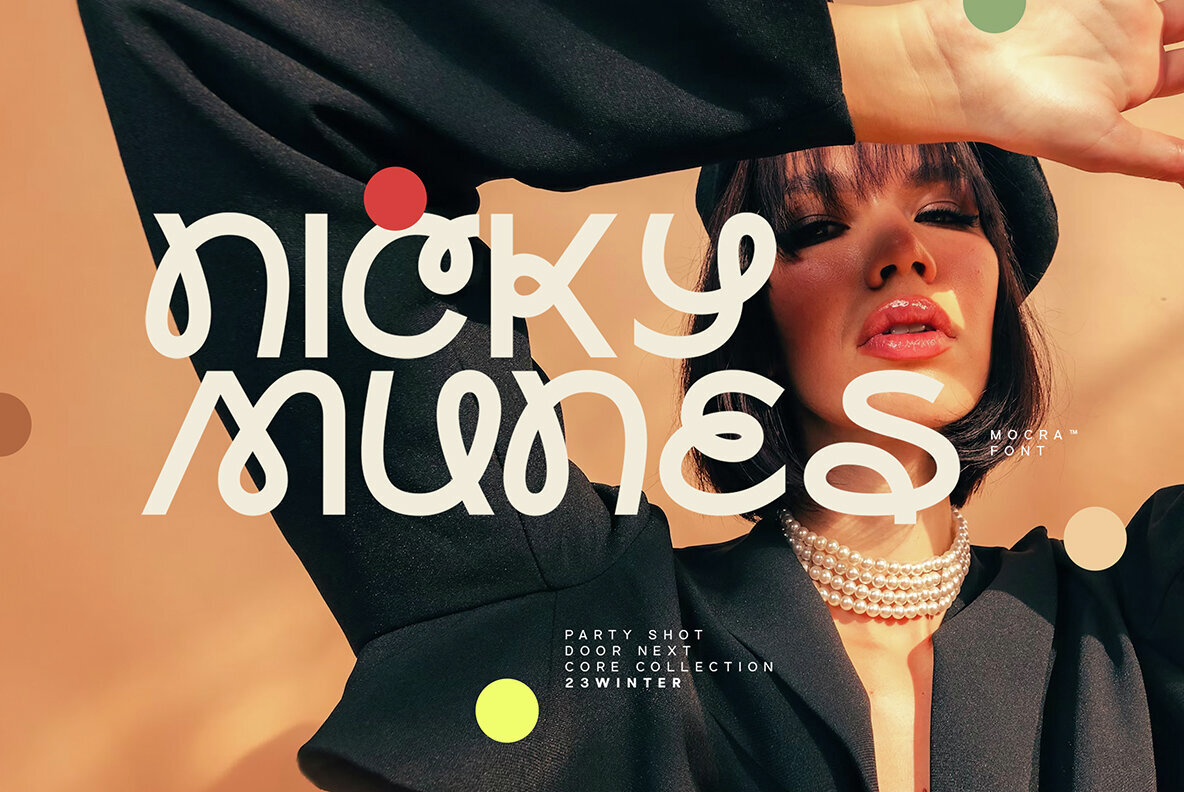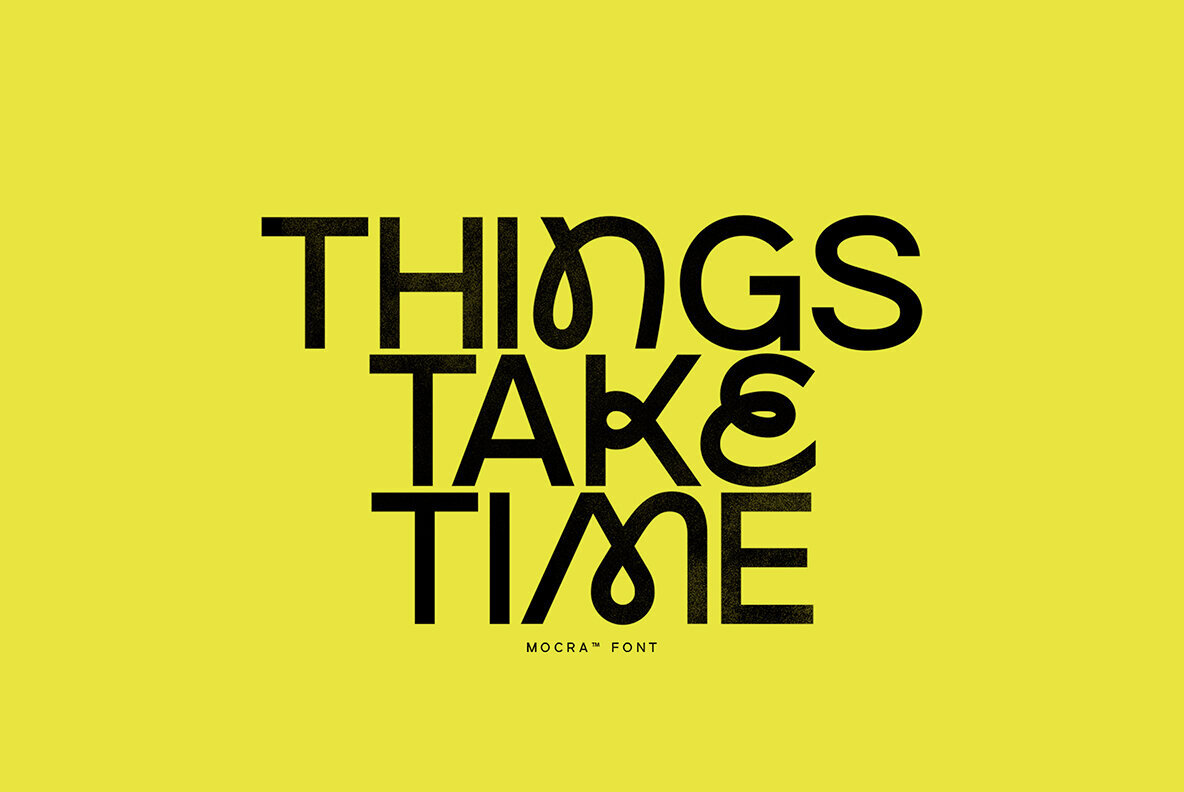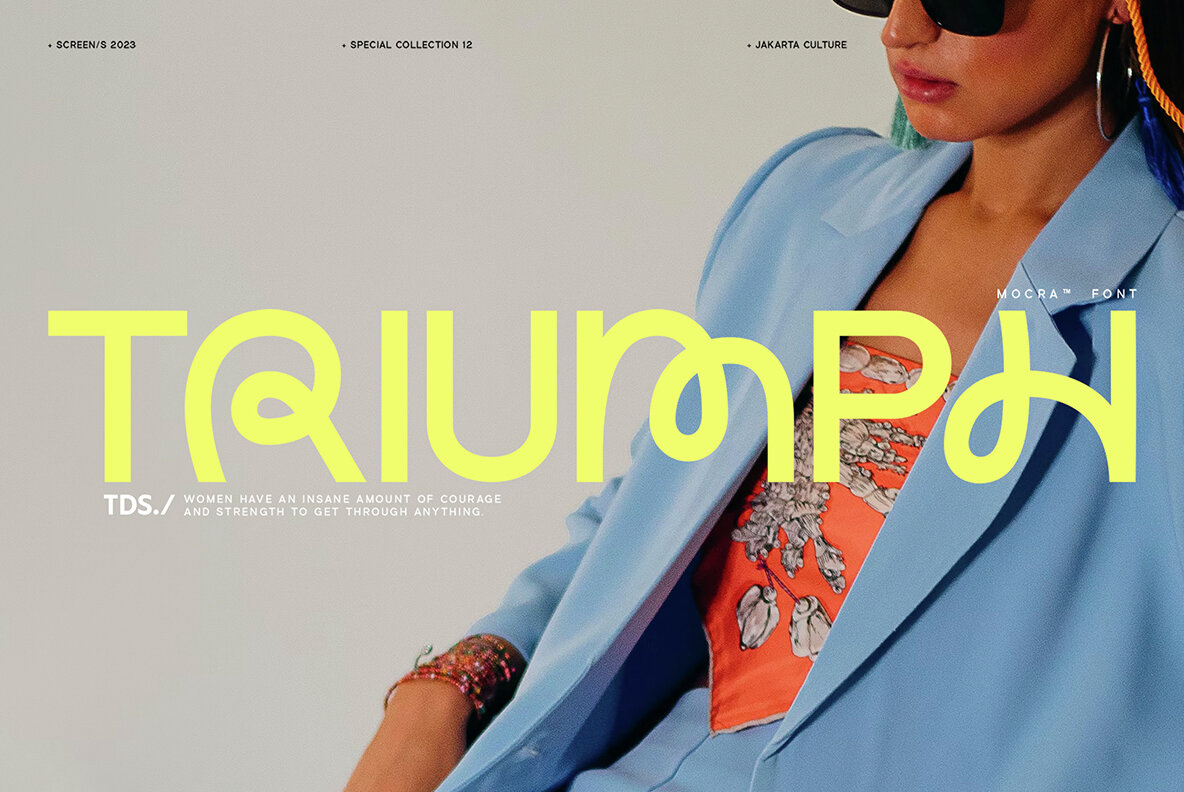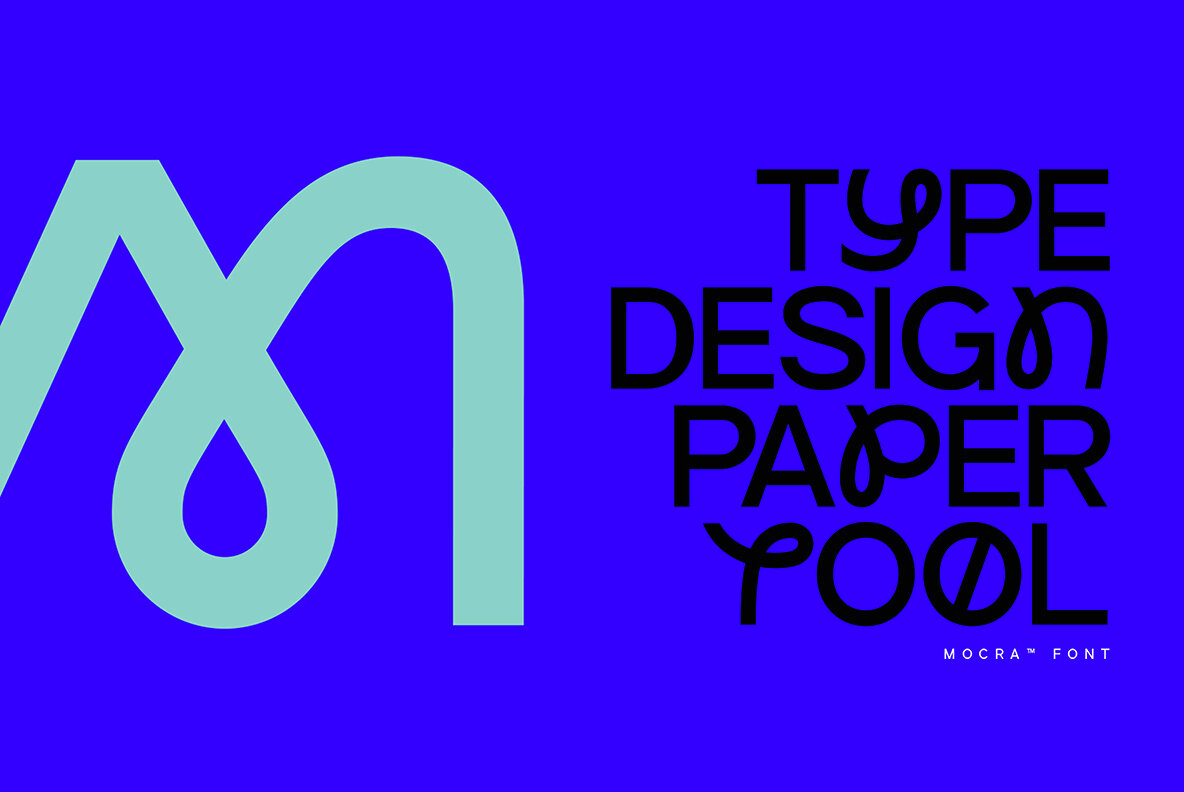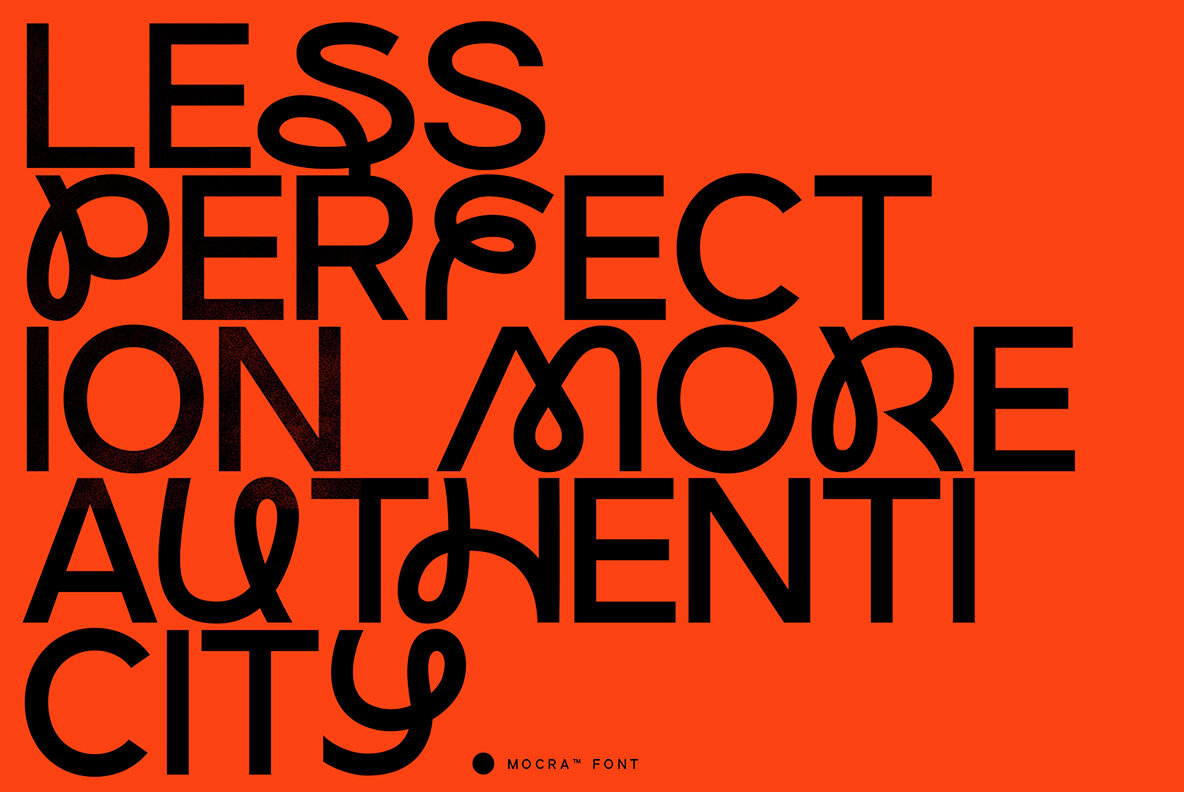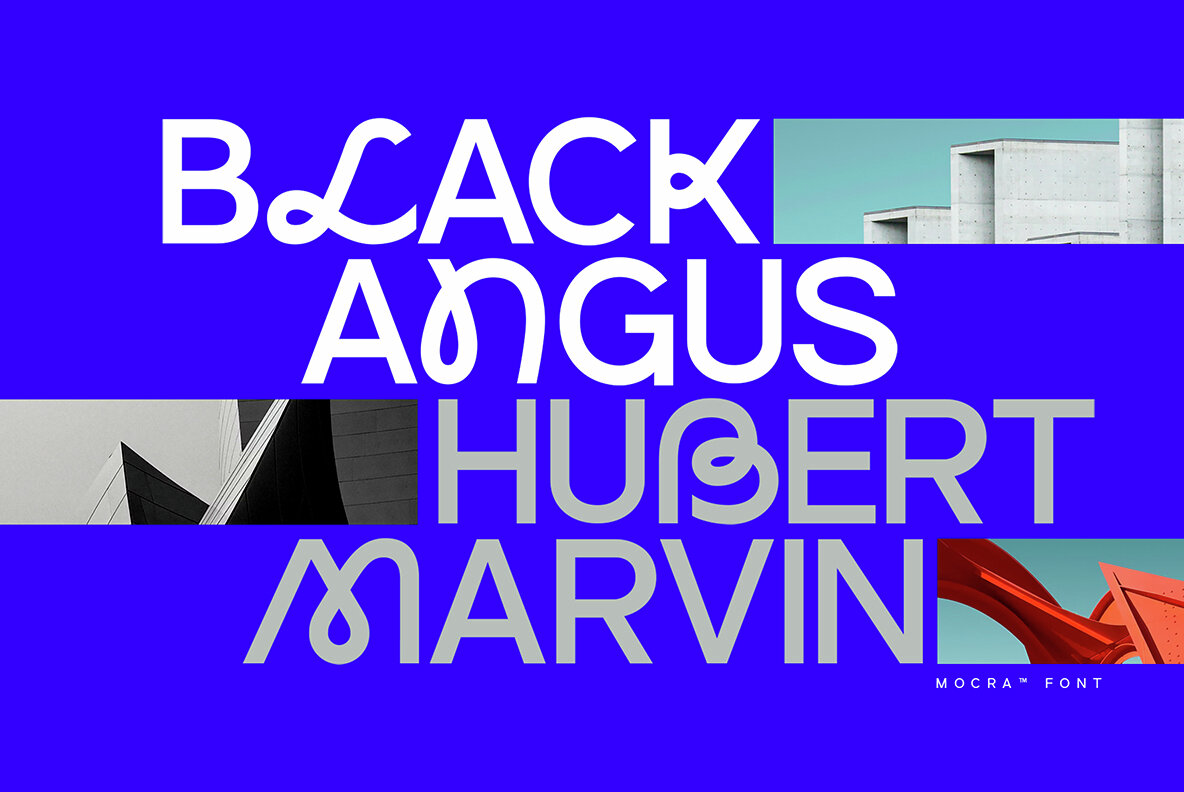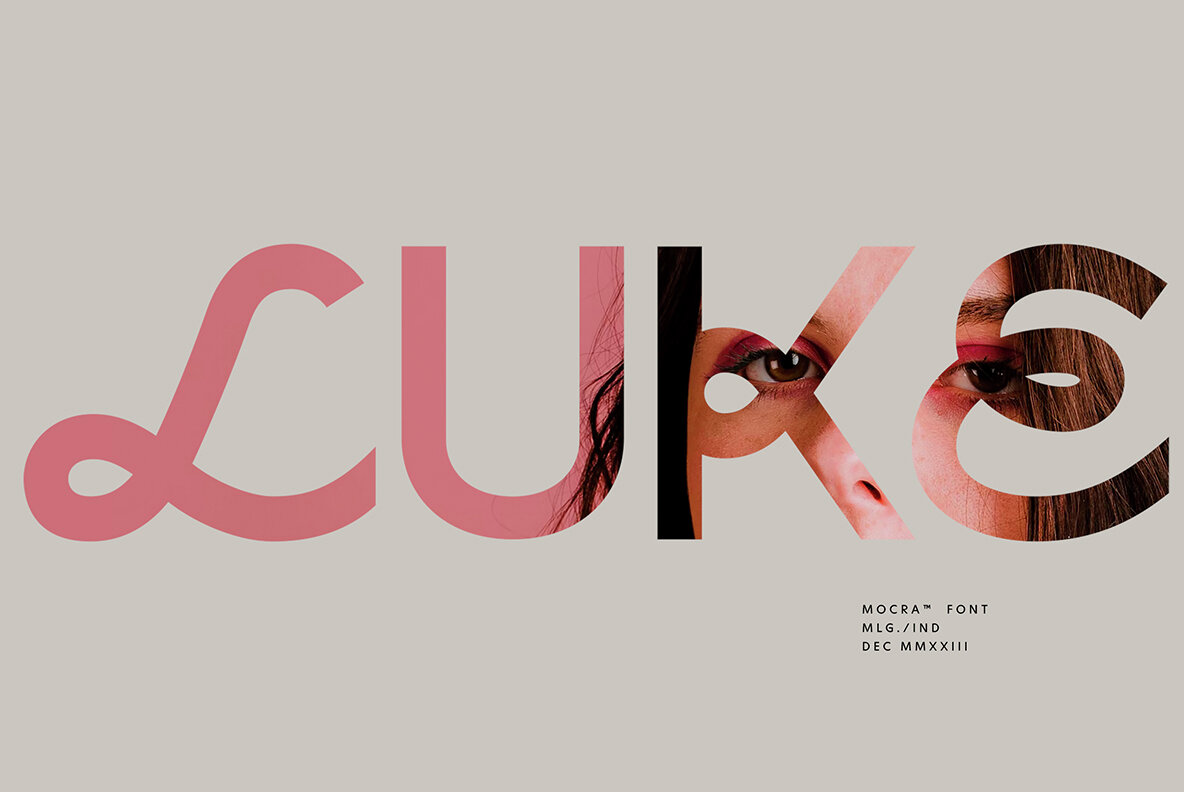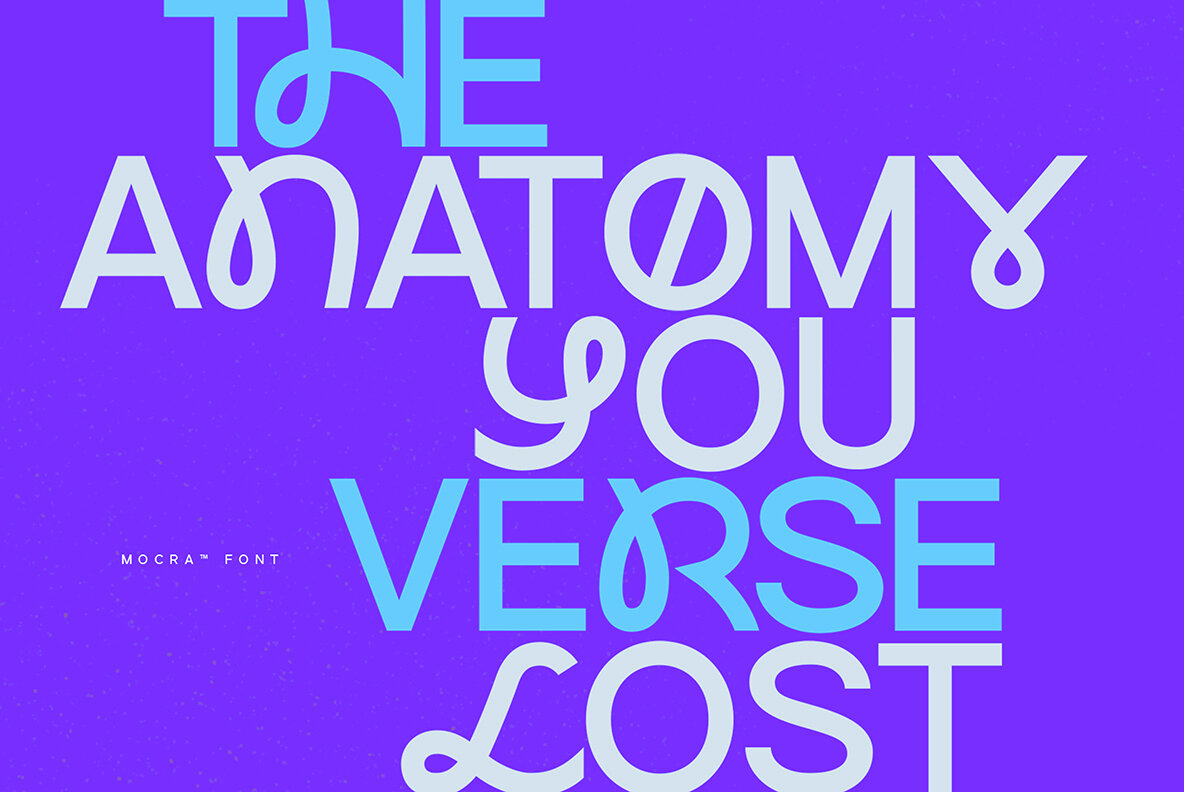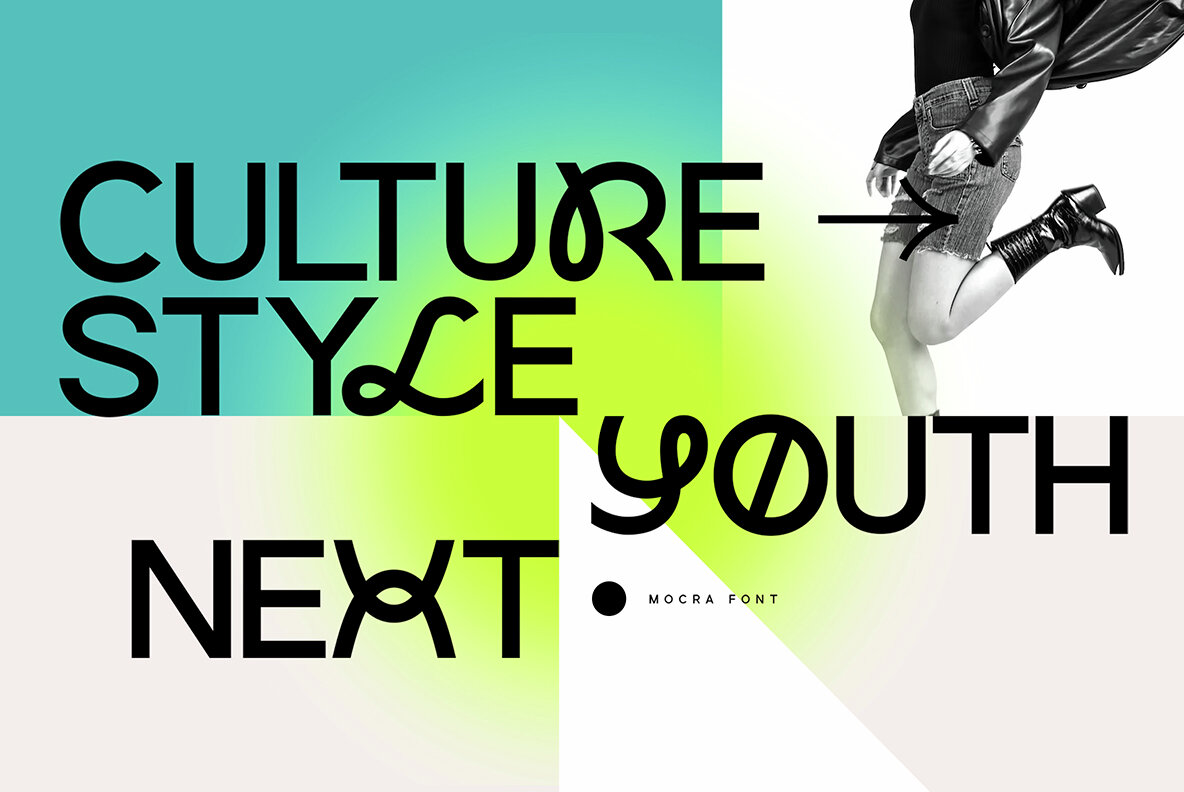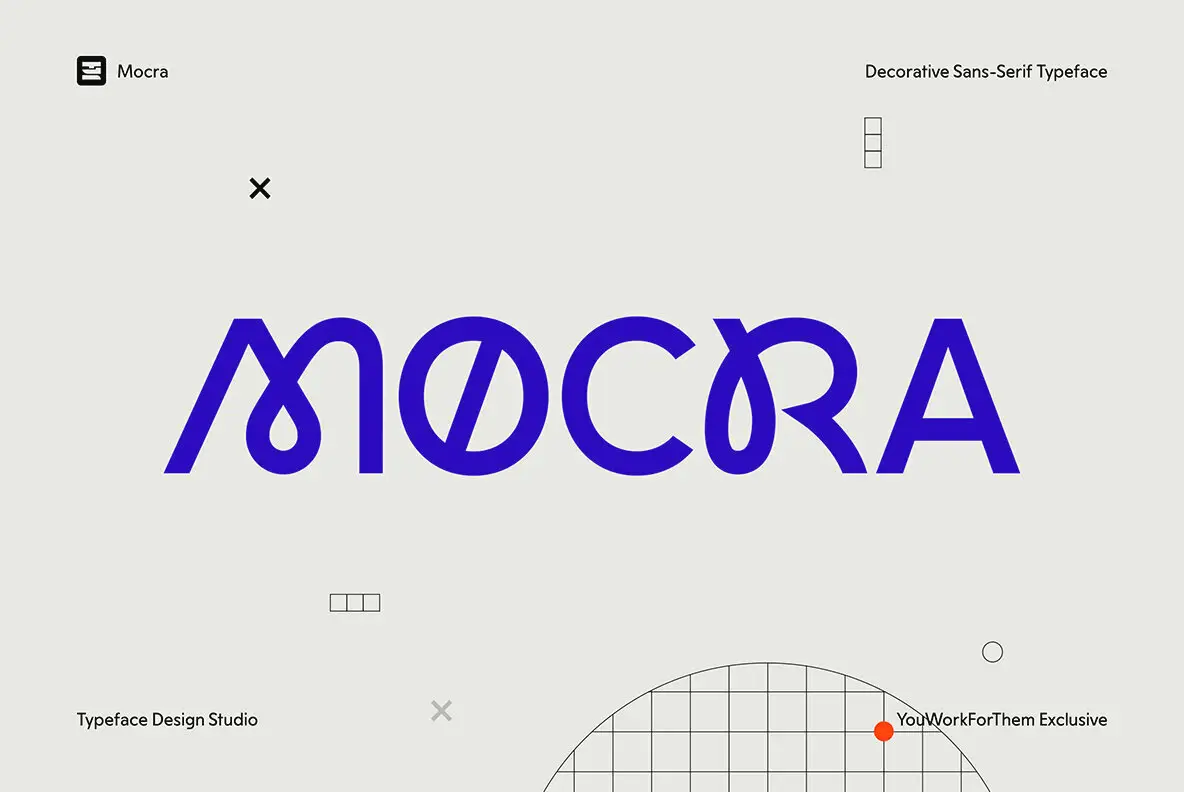
Mocra Font
Mocra is a clean and experimental display font with a distinctive personality. Each letterform is uniquely sculpted, reflecting the meticulous design ethos of Typeface Design Studio. Exclusively available at YouWorkForThem, Mocra skillfully combines the expressive elegance of script with the refined precision of sans-serif, offering a typeface that feels both fluid and architectural. For designers seeking a font that balances organic rhythm with modern structure, Mocra stands as an ideal choice. It makes a striking statement in branding, editorial, and digital environments, its hybrid nature offering personality without sacrificing clarity.Mocra: A Sculptural Hybrid of Script and Sans
Typeface Crafted for Creative Contrasts